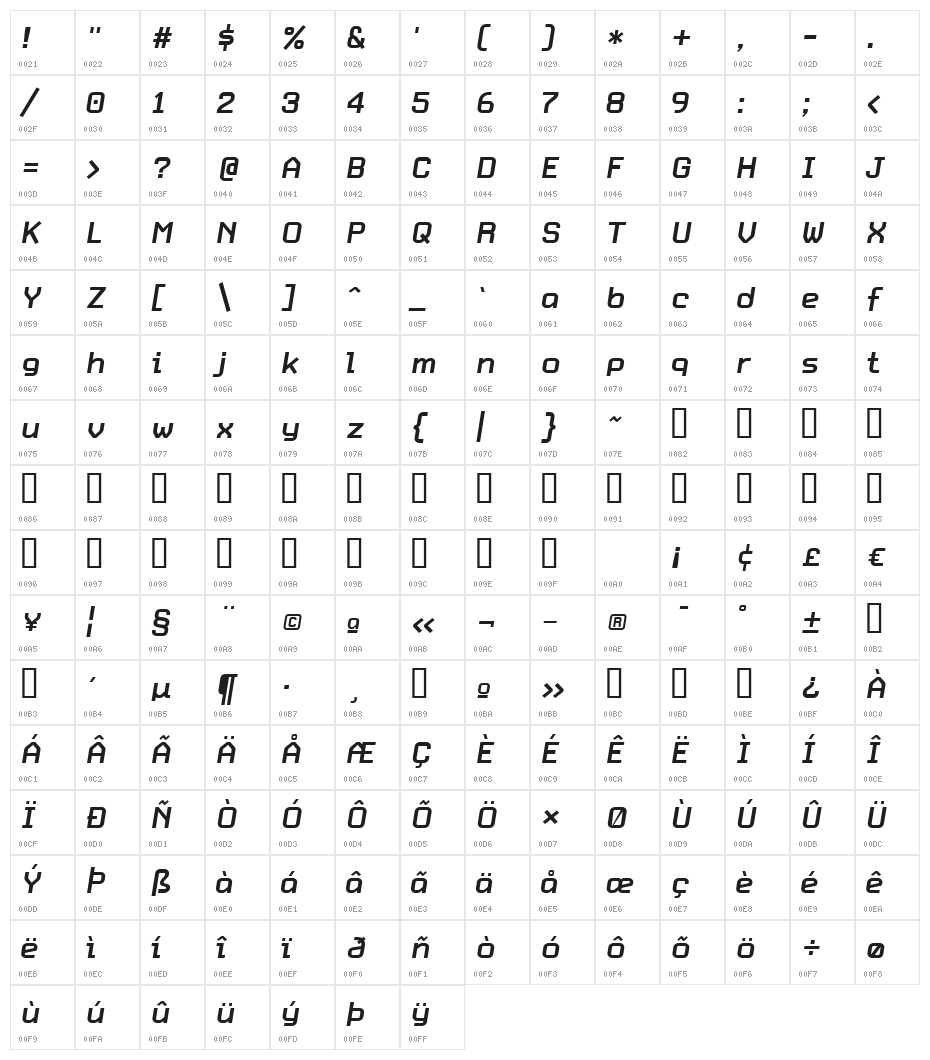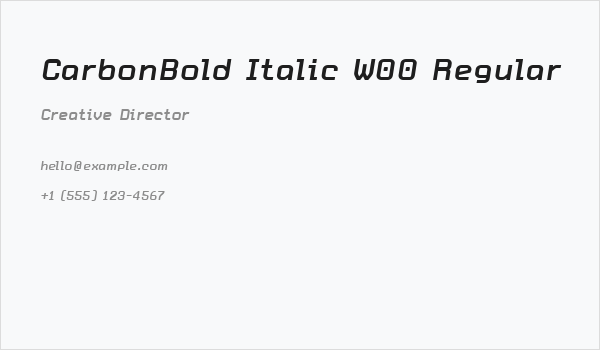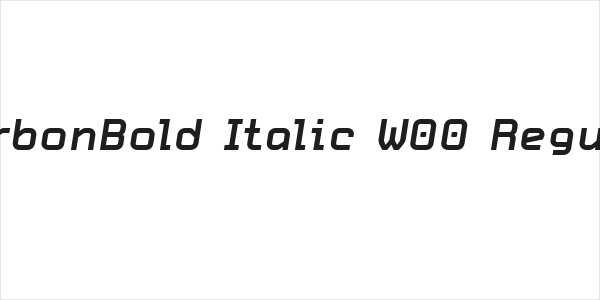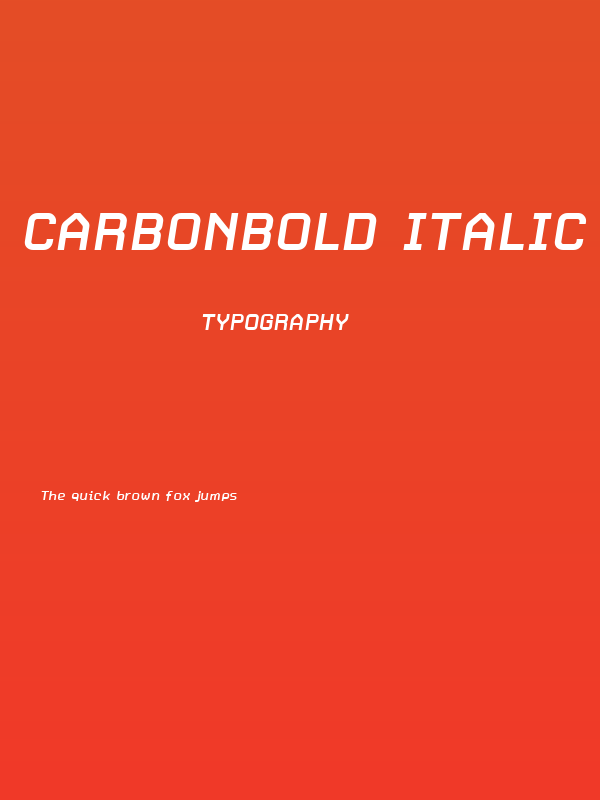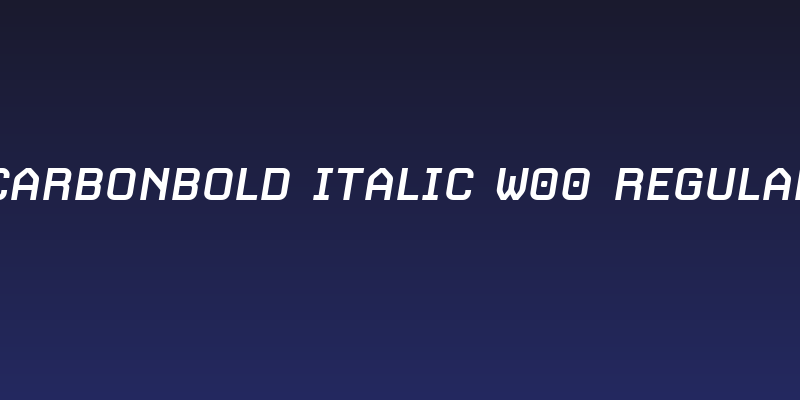
CarbonBold Italic W00 Regular Font
CarbonBold Italic W00 Regular Description
This font features a bold and italic style with a modern, geometric design. The characters are slightly slanted, giving a dynamic and forward-moving appearance. The uppercase letters are uniform in height, while the lowercase letters maintain a consistent baseline, enhancing readability. The numerals are distinct and clear, making them suitable for various applications. Special characters are well-defined, adding versatility to the font. The overall look is clean and professional, suitable for both digital and print media.
| Proposed Projects | Ideal for branding, advertising, digital media, and print materials where a modern and dynamic look is desired. |